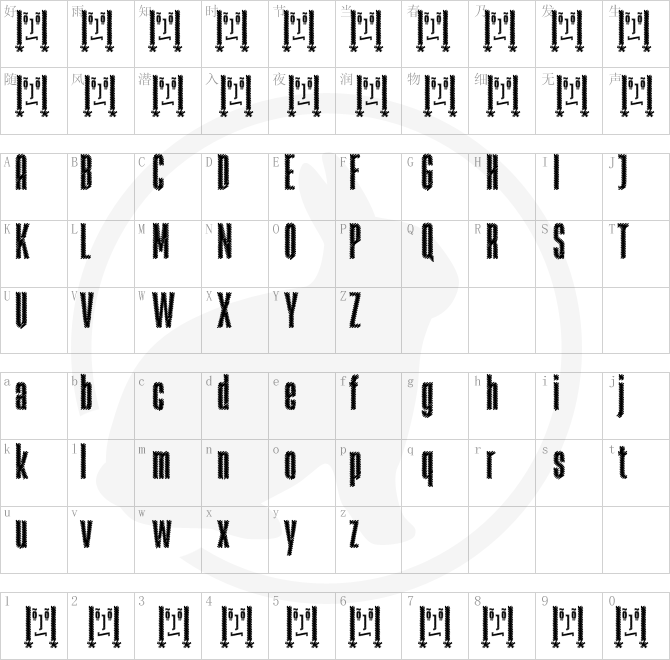
- Font Name:Rabiosa
Rabiosa-copy-1-.ttf is a very beautiful artistic font, Rabiosa-copy-1-.ttf is widely used in the design and printing of various books and pictures,Rabiosa-copy-1-.ttf has a strong visual impact,Rabiosa-copy-1-.ttf is a commonly used font in newspapers, magazines and books, and is used in posters, e-commerce Poster design, store design, logo design, font design and other fields.Rabiosa-copy-1-.